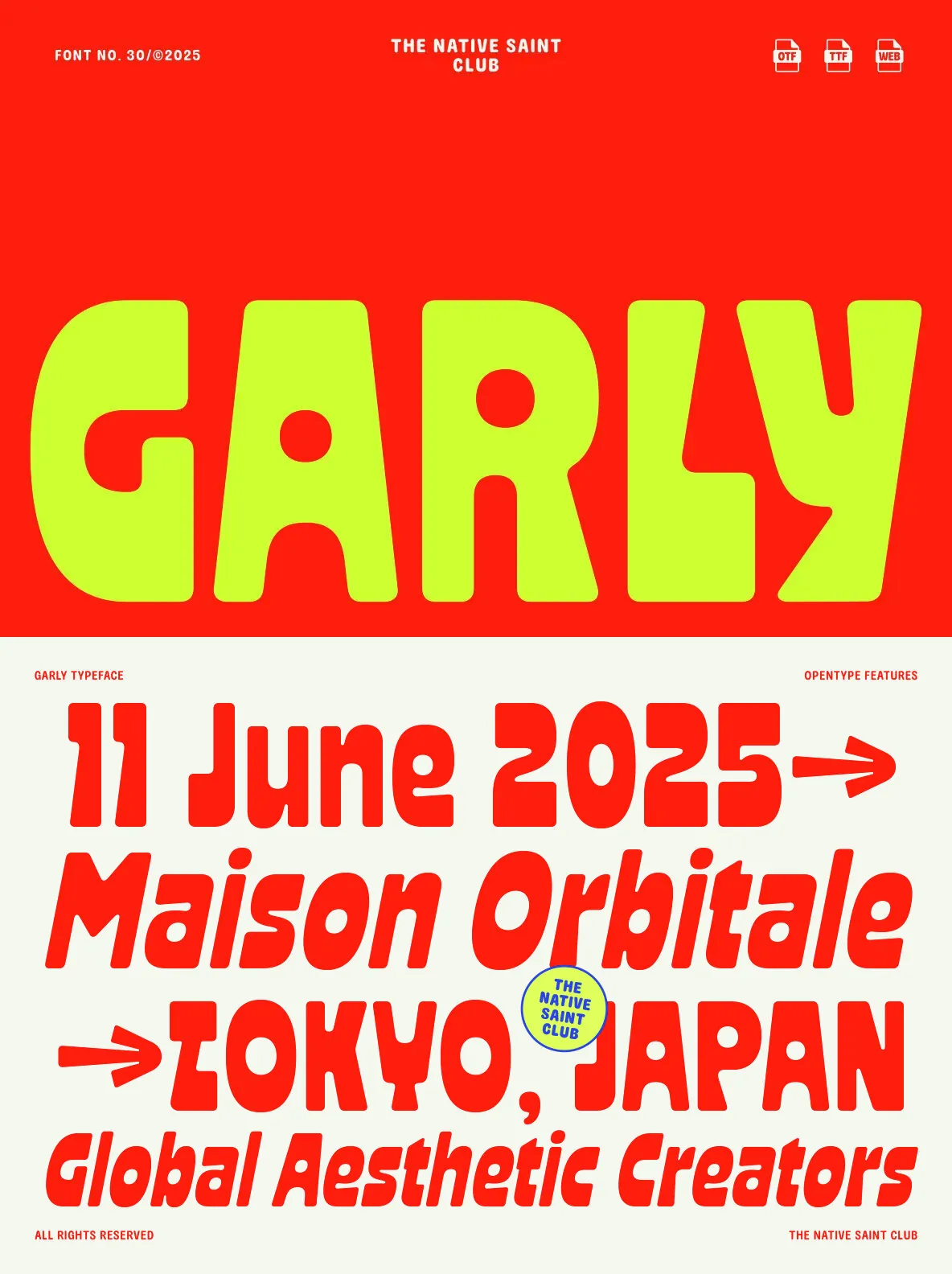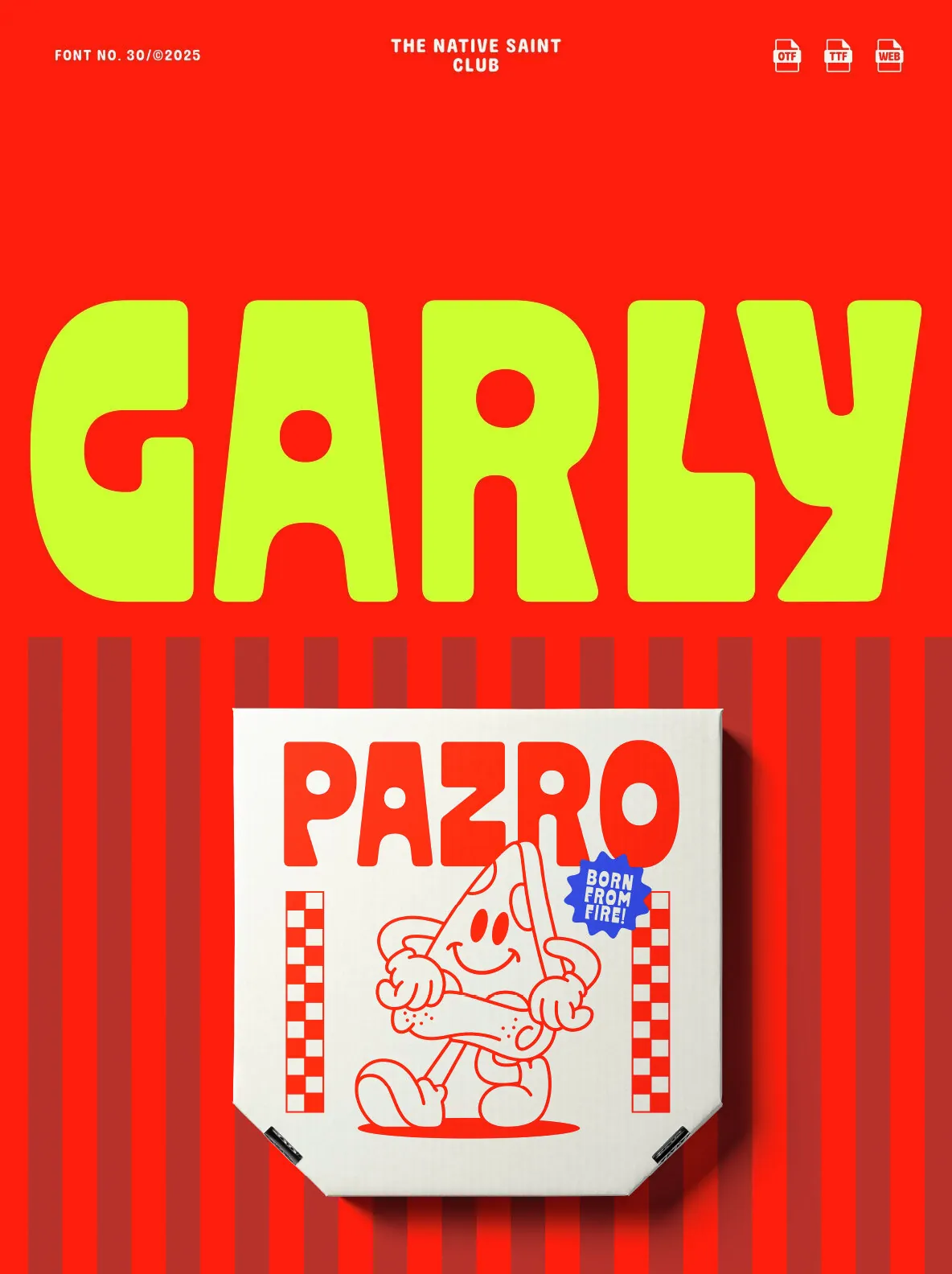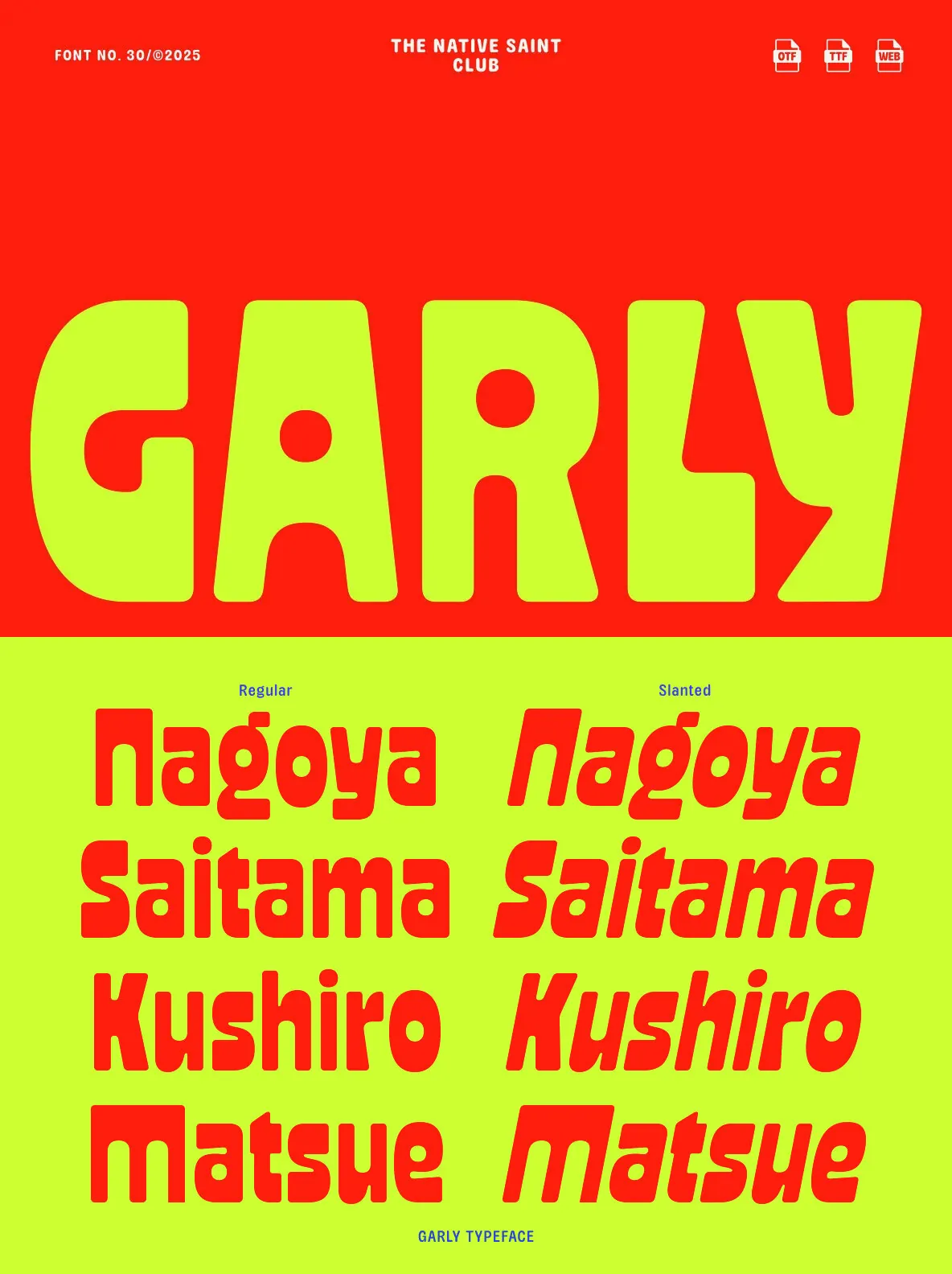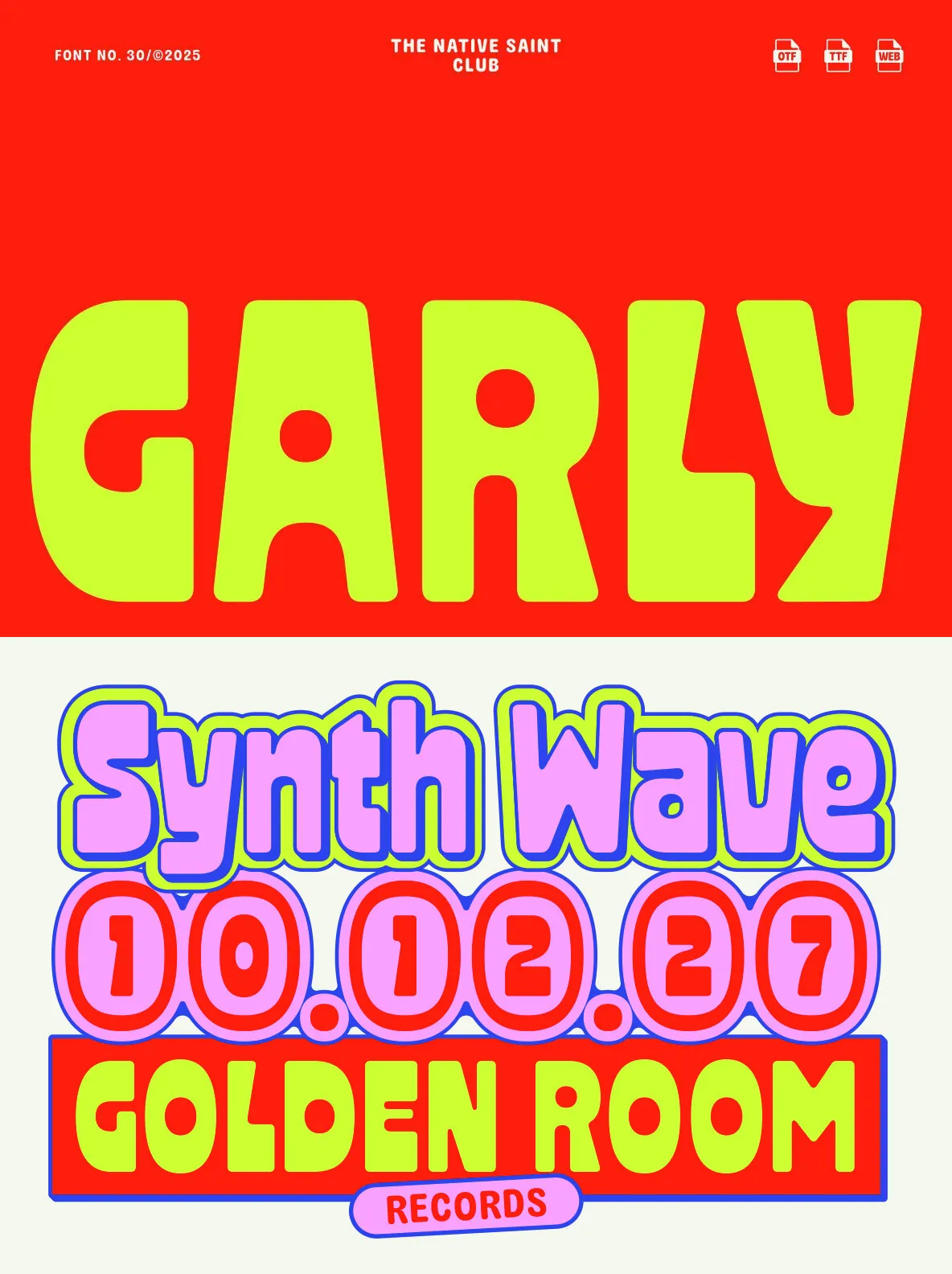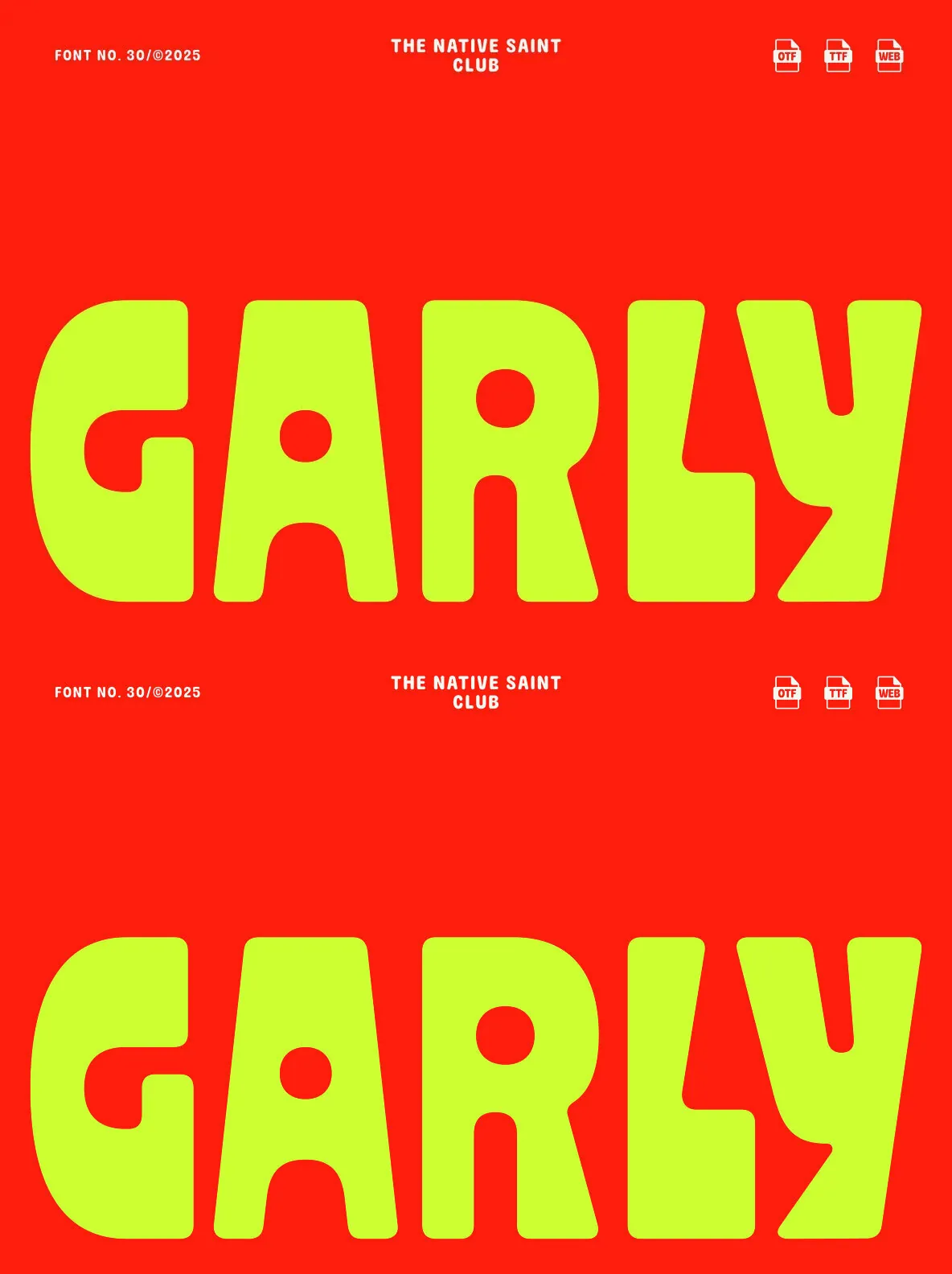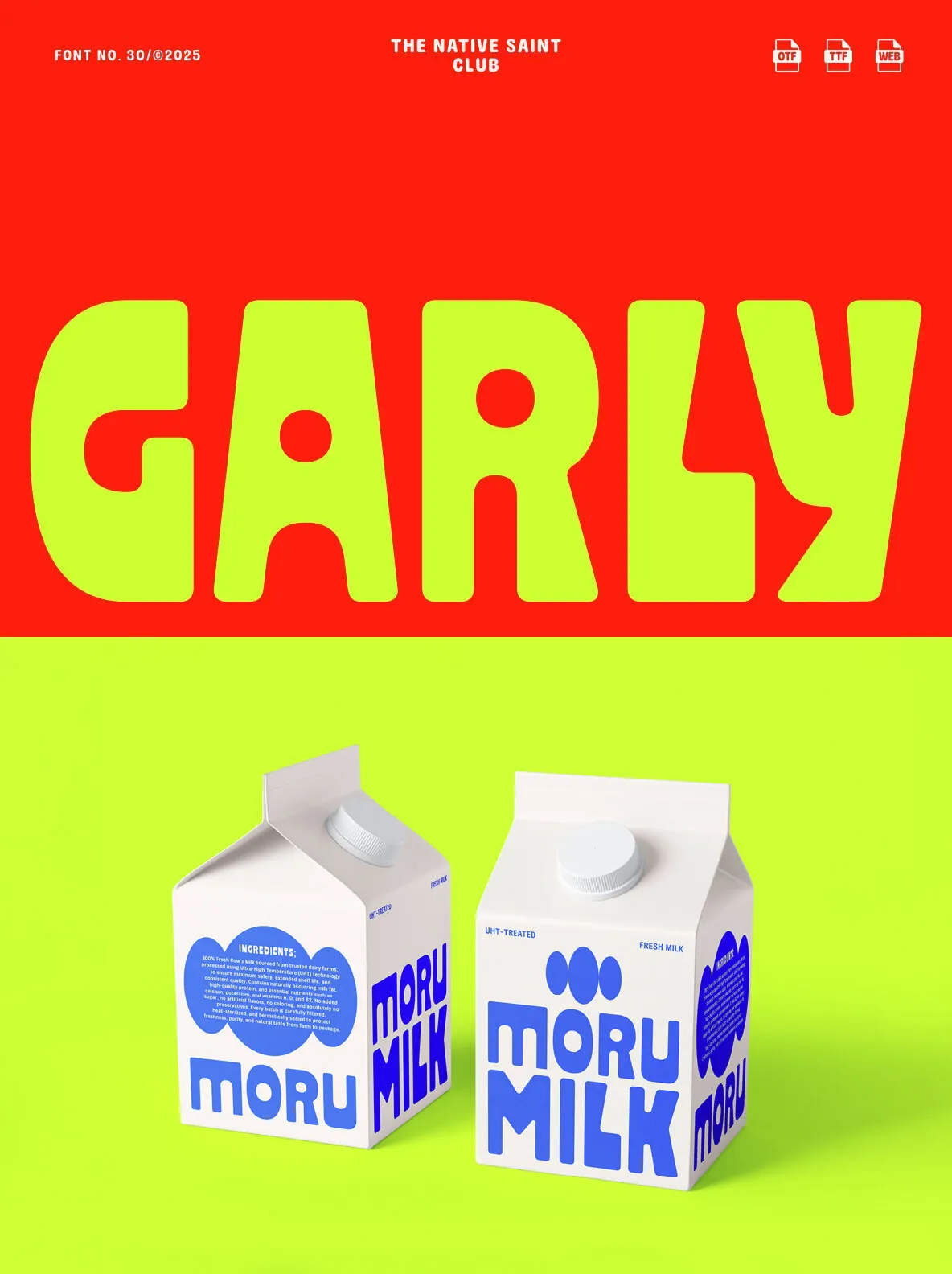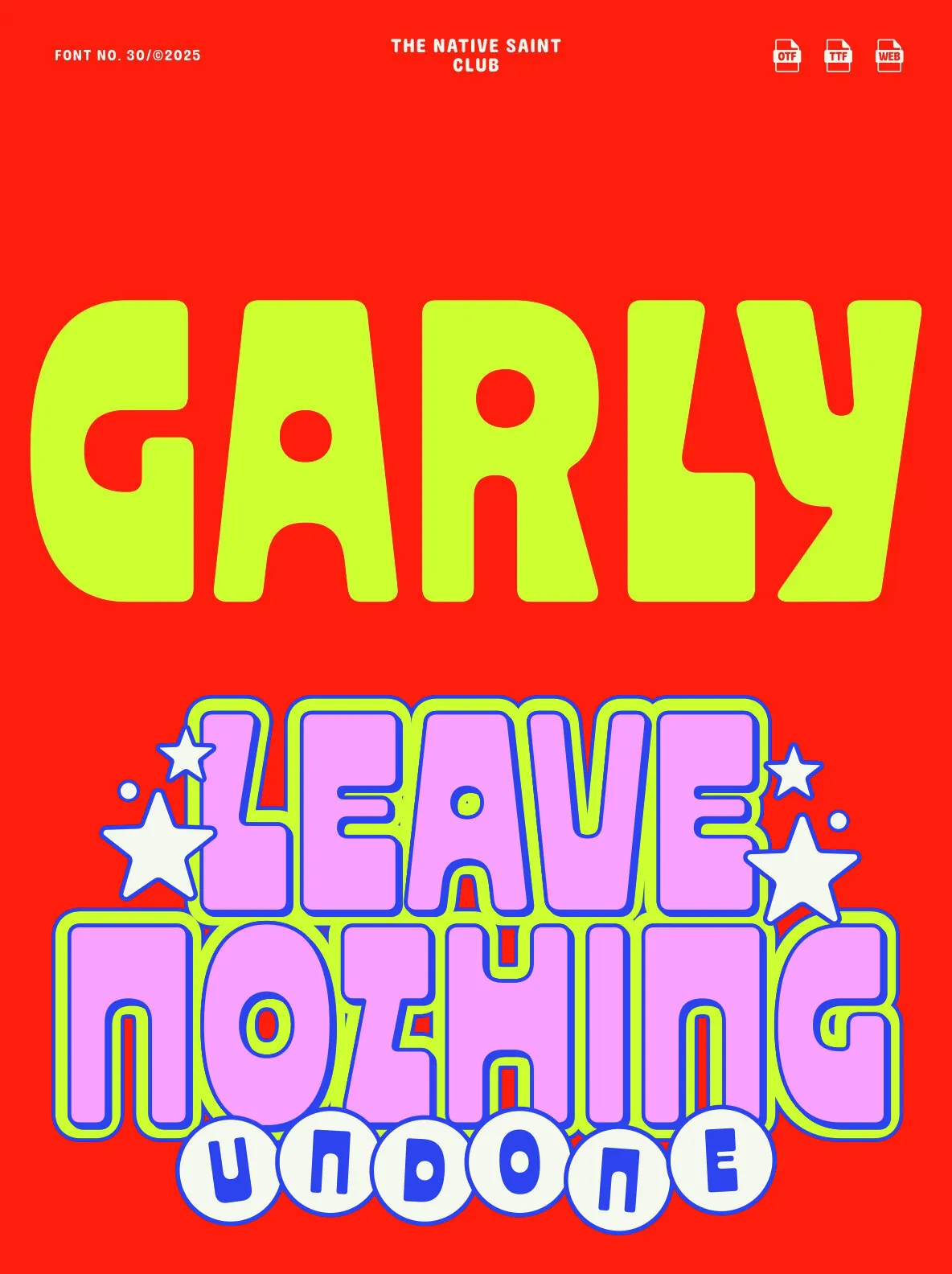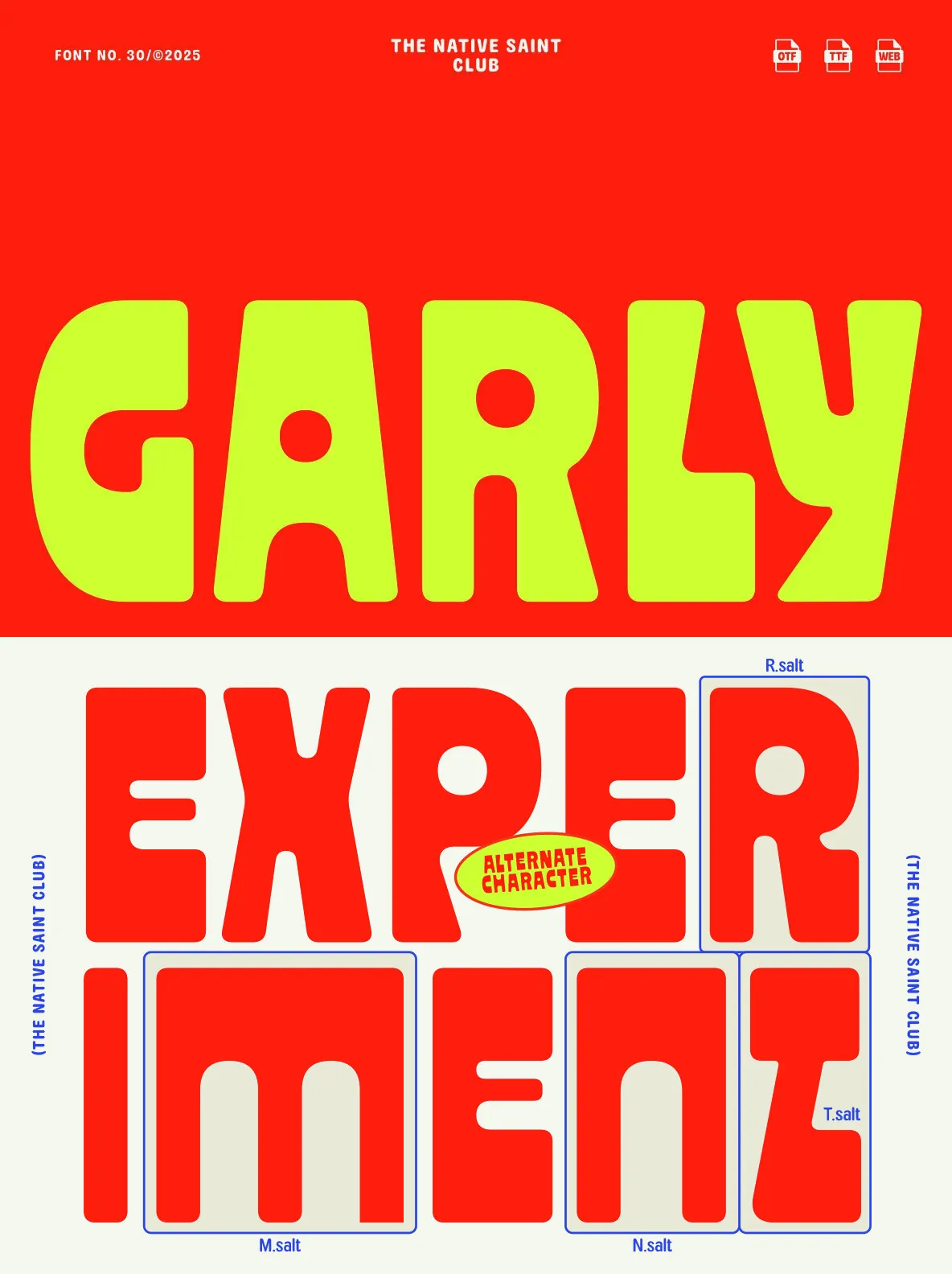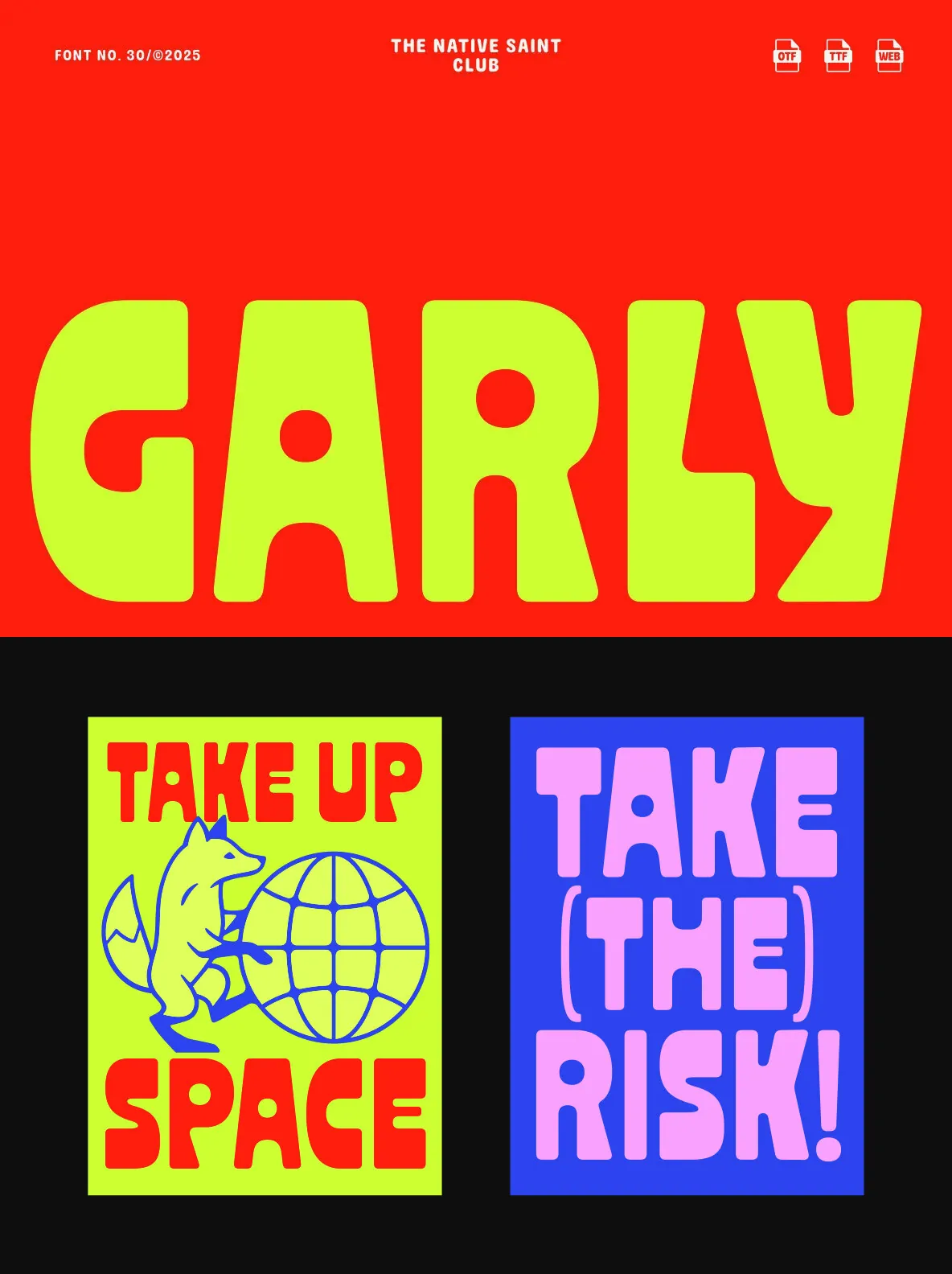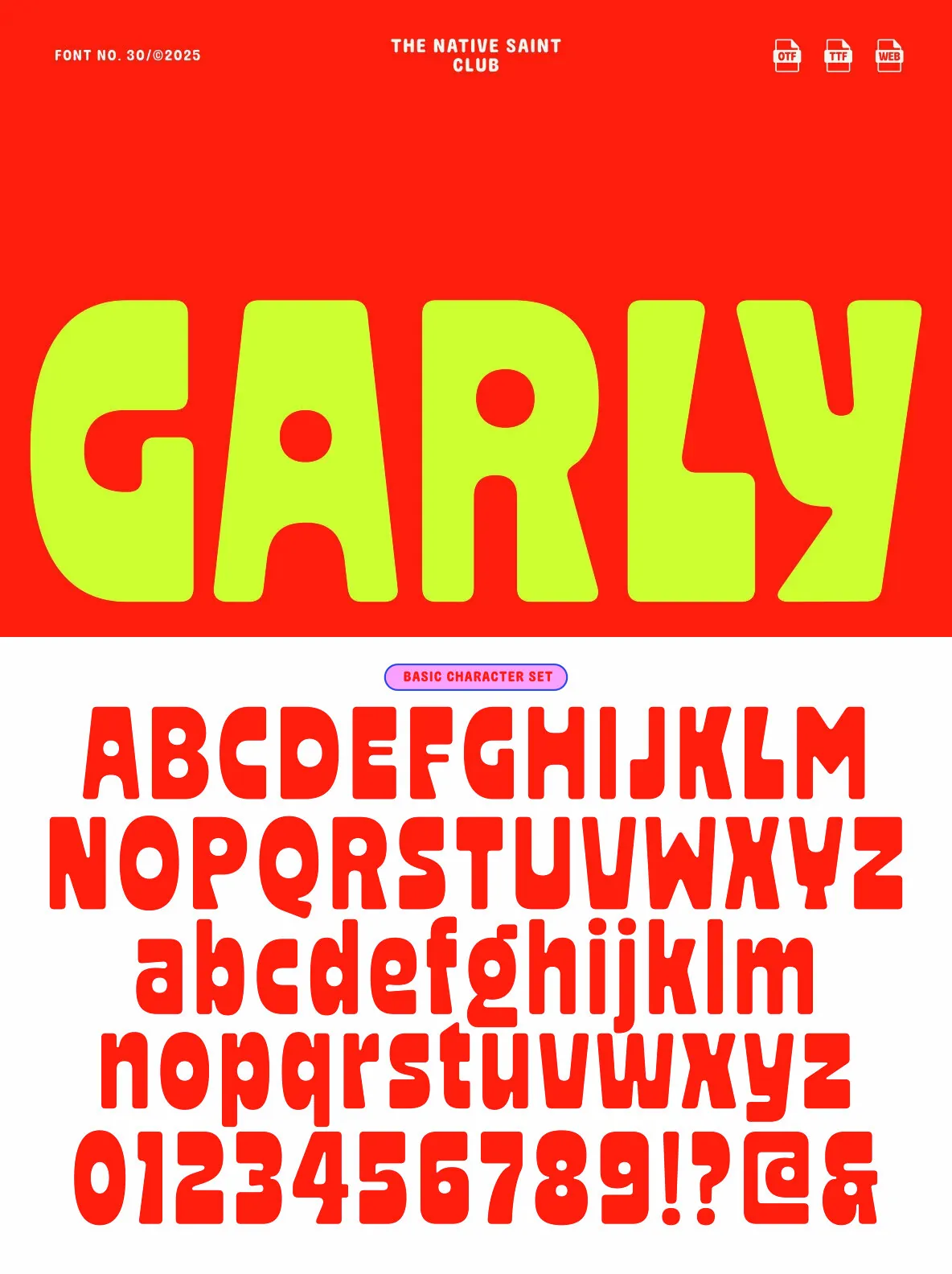
TNSC GARLY: Rounded Display Typeface for Modern Projects
TNSC GARLY introduces a bold approach to display typography with its rounded, playful letterforms. Designed for clarity and visual impact, this typeface brings a modern, approachable character to branding, editorial work, and packaging. Softer edges and improved glyph balance distinguish TNSC GARLY from its predecessor, resulting in enhanced readability and a distinct yet versatile appearance for contemporary design applications.
Bold, rounded letterforms that promote legibility
Modern, friendly aesthetic suited to diverse creative projects
Available in Regular and Slanted styles
Refined shapes for visual balance across all characters